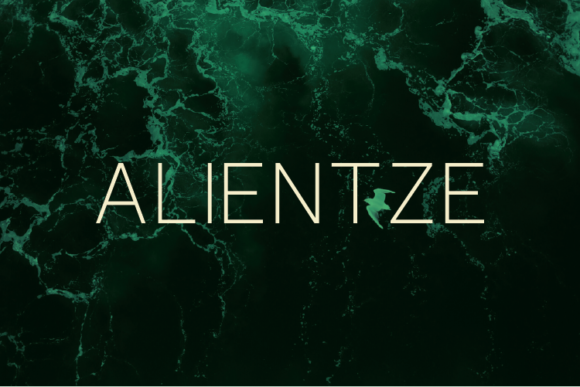
Introducing Alientze Font: The Epitome of Modern and Classy Sans Serif Typography
In the realm of typography, fonts play a pivotal role in shaping the visual identity of a brand, product, or service. With the vast array of fonts available, selecting the right one can be a daunting task. However, if you’re looking for a modern, classy, and versatile sans serif font, look no further than Alientze Font. This sleek and sophisticated font is designed to complement a wide range of designs, from formal to informal, making it an ideal choice for various creative projects.
What is Alientze Font?
Alientze Font is a contemporary sans serif font characterized by its thin and minimal design. Its clean lines, elegant curves, and precise letter spacing make it an excellent choice for designs that require a touch of sophistication and refinement. The font’s simplicity and clarity ensure that it remains legible even at smaller sizes, making it perfect for body text, headings, and titles.
Key Features of Alientze Font
- Modern and Classy Design: Alientze Font boasts a modern and classy design that instantly elevates the visual appeal of any design.
- Thin and Minimal: The font’s thin and minimal design makes it perfect for designs that require a subtle yet sophisticated touch.
- Sans Serif: As a sans serif font, Alientze Font features clean lines and no decorative flourishes, ensuring a sleek and streamlined appearance.
- Versatile: Alientze Font is versatile and can be used for a wide range of designs, from formal to informal, making it an excellent addition to any designer’s font library.
- Legible: The font’s precise letter spacing and clear lines ensure that it remains legible even at smaller sizes.
Use Cases for Alientze Font
Alientze Font’s versatility makes it suitable for various creative projects, including:
- Branding and Logo Design: Use Alientze Font to create a sophisticated and modern brand identity that stands out from the competition.
- Advertising and Marketing Materials: The font’s clean and elegant design makes it perfect for use in advertising and marketing materials, such as brochures, flyers, and posters.
- Web Design: Alientze Font is an excellent choice for web design, as it remains legible even at smaller sizes and can be used for both headings and body text.
- Print Design: The font’s versatility makes it suitable for various print design projects, including business cards, letterheads, and packaging design.
Benefits of Using Alientze Font
Using Alientze Font offers several benefits, including:
- Enhanced Visual Appeal: The font’s modern and classy design instantly elevates the visual appeal of any design.
- Increased Legibility: Alientze Font’s precise letter spacing and clear lines ensure that it remains legible even at smaller sizes.
- Versatility: The font’s versatility makes it suitable for various creative projects, from formal to informal designs.
- Time-Saving: With Alientze Font, you can save time and effort in selecting a font that meets your design requirements.
In conclusion, Alientze Font is a modern, classy, and versatile sans serif font that can elevate the visual appeal of any design. Its thin and minimal design, combined with its legibility and versatility, make it an excellent choice for various creative projects. Whether you’re a designer, developer, or entrepreneur, Alientze Font is an excellent addition to your font library.
- What is Alientze Font? Alientze Font is a modern and classy sans serif font designed for use in various creative projects.